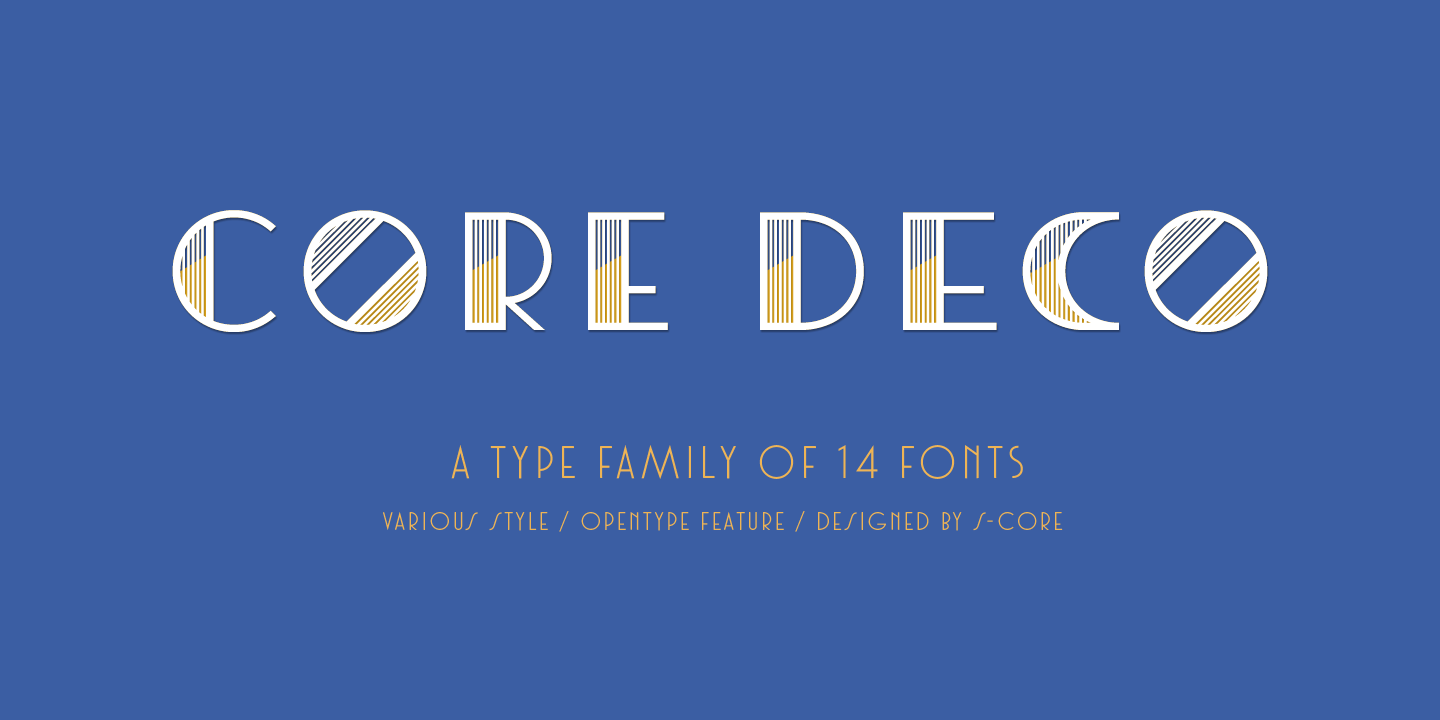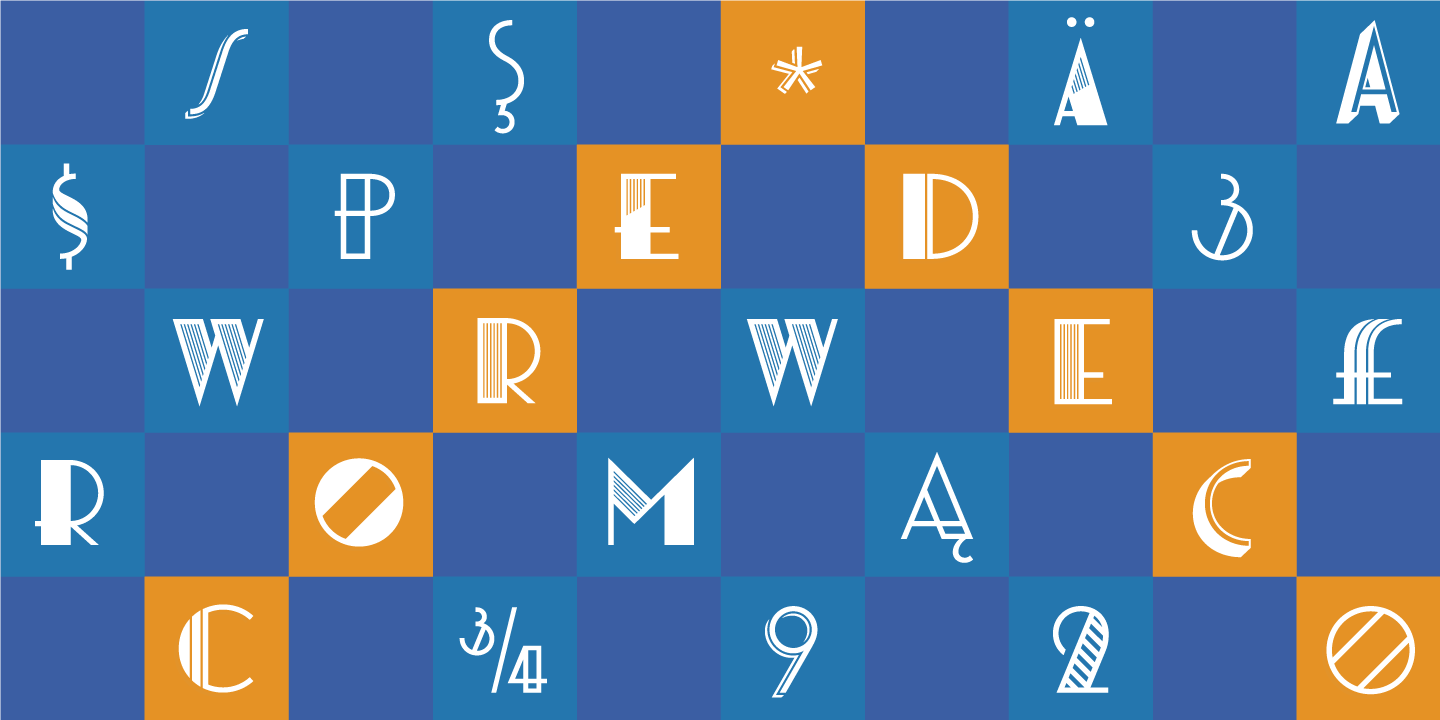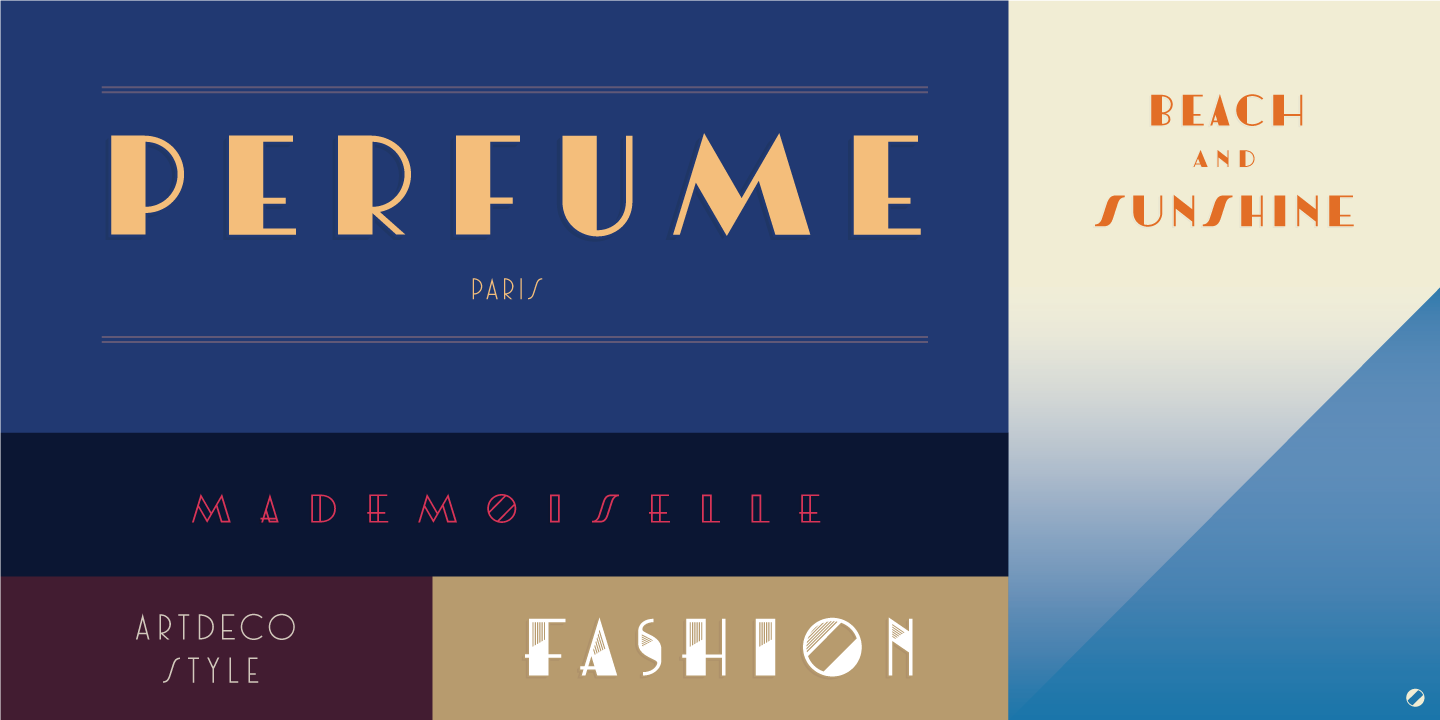
Core Deco, a family of Art Deco fonts with modern layering options.
The type designers Hyun-Seung Lee, Dae-Hoon Hahm, and Min-Joo Ham of foundry S-Core worked together in order to create a type family that offers the glamor and elegance of the roaring twenties up to typographic styles of the 1950s.
Core Deco is a font family based on authentic Art Deco styles with the addition of numerous layering options. You can find more details below the first image.
Core Deco is equipped with 14 fonts including two major styles. The first one looks thin and elegant while the other style creates a strong, sturdy contrast. Both major styles come with alternative shape variants such as 3D structures, patterns, outlines, etc.
The different styles can be combined in many different ways. Some similar styles can also be layered together in order to create something completely new and unique.
The extended character set of the Core Deco font family supports a range of different languages. The family contains all Latin, Central European, and Turkish characters. If you want to create beautiful art-deco styles such as posters or festive invitations, Core Deco could be the right type family for your needs! The family is available as both desktop font and modern web font. For additional information, just follow the link below.